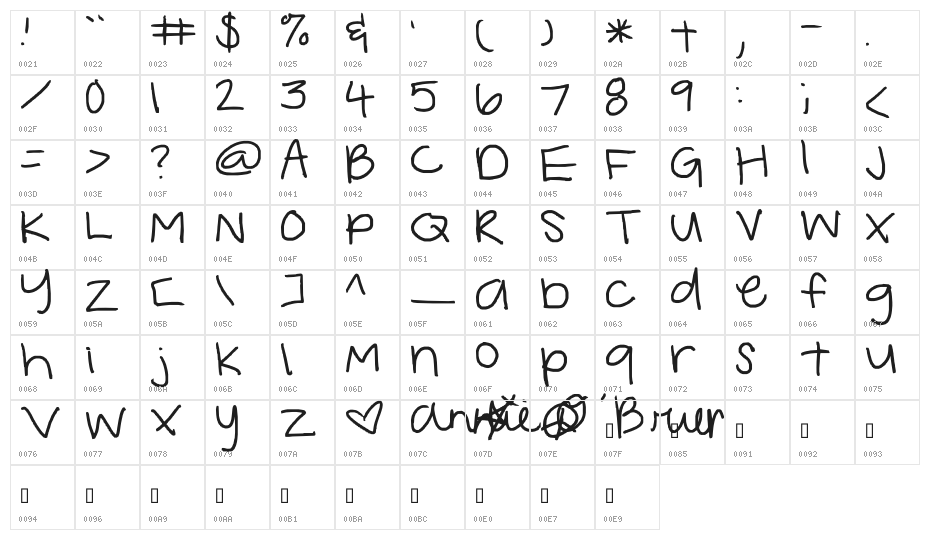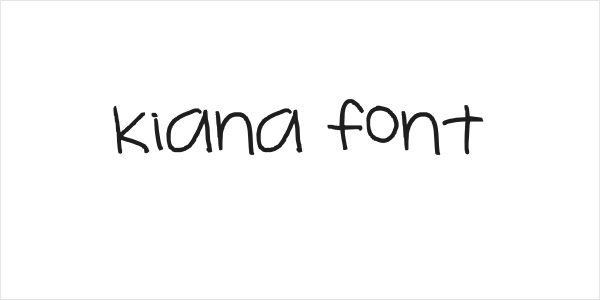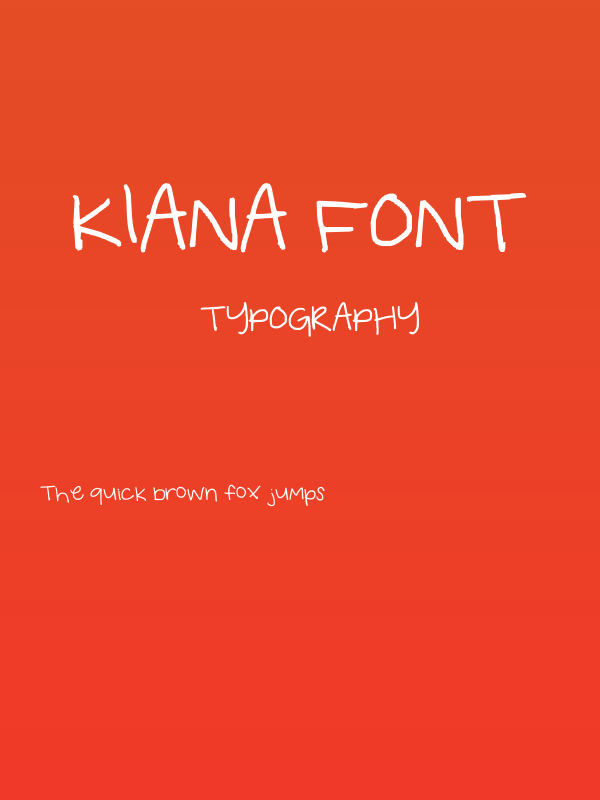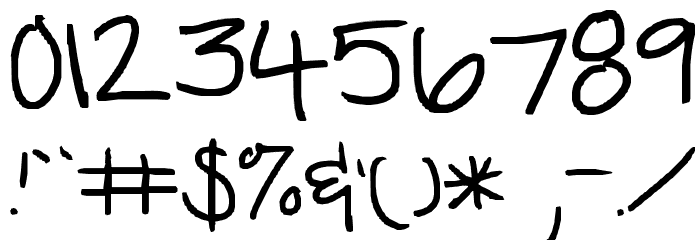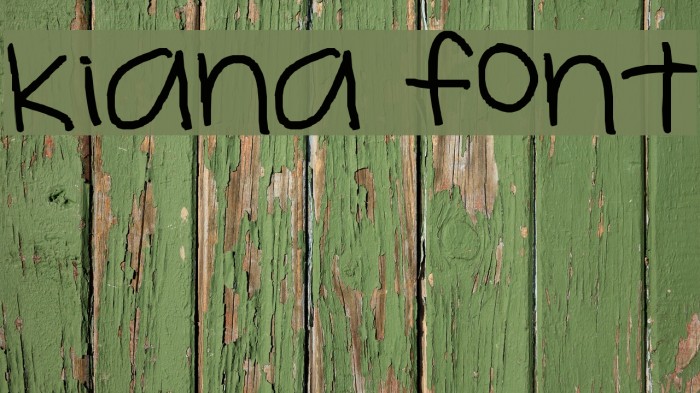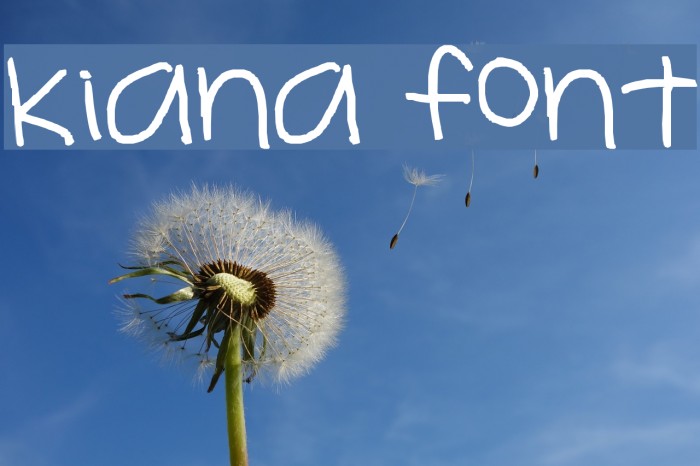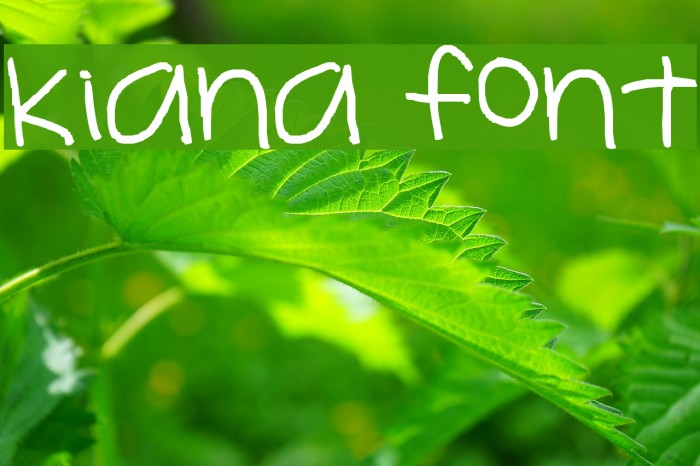
kiana font Font
| Stile generale | Casual, Playful |
| Caso d'uso | Headlines, Informal text, Creative projects |
| Progetti proposti | Ideal for greeting cards, children's books, personal notes, and creative projects. |